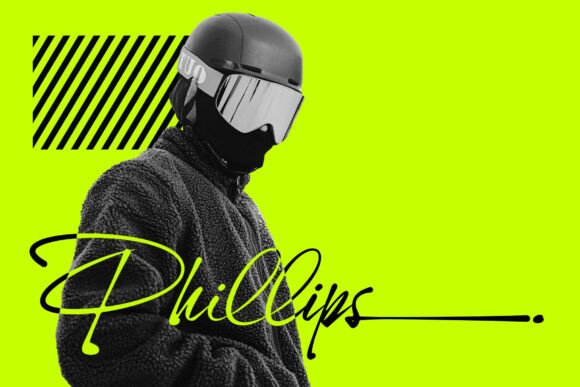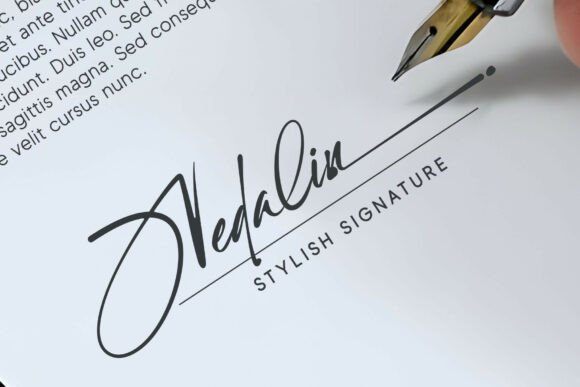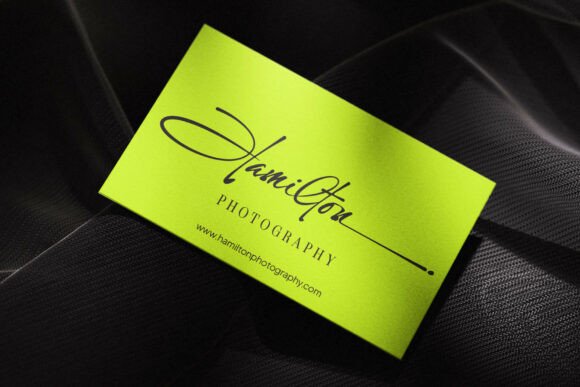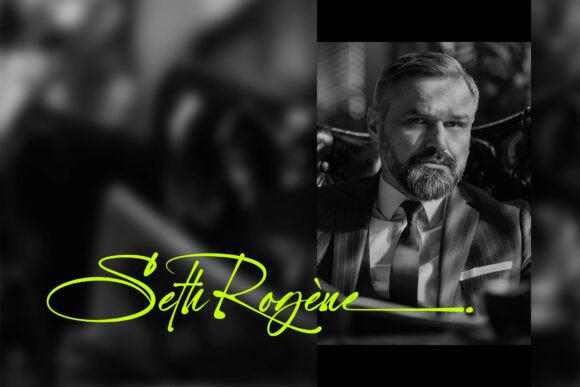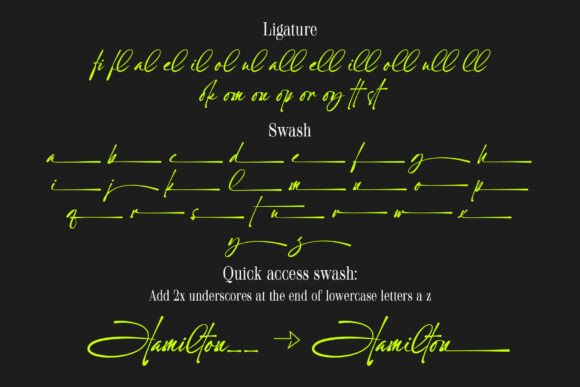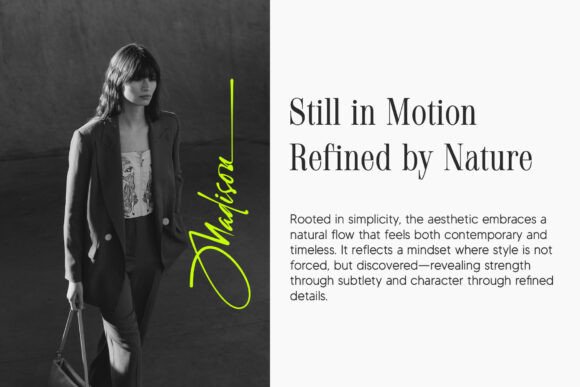
Introduction to Nedalin Font
Have you ever stared at a blank page, trying to conjure up the perfect font for your next creative project? The pressure to find the perfect design resource can be overwhelming, but what if I told you there’s a font that can take your designs to the next level? Say hello to the Nedalin Font, a game-changing signature-style font that’s about to become your new best friend.
As a designer, you’re constantly on the lookout for high-quality fonts that can elevate your work and make it stand out. The Nedalin Font is just that – a versatile and stylish font that features a bold, expressive, and natural character. With its smooth, flowing strokes and swash and ligature features, this font is perfect for creating unique and elegant visual identities.
Key Features of Nedalin Font
- The unique, elegant design of Nedalin Font makes it an excellent choice for creative projects, such as branding, typography, and graphic design.
Honest Review: Nedalin Font
I recently had the chance to work with the Nedalin Font, and I must say, it’s been a pleasant experience. As a designer, I’m always on the lookout for high-quality design resources that can elevate my creative projects.
The Nedalin Font is a beautifully crafted font that exudes elegance and sophistication. What works well is its versatility, making it suitable for a wide range of design applications, from branding to digital design.
However, I did encounter a few limitations. The font’s character set is somewhat limited, which can be a problem for designers working on projects that require a wide range of characters.
Nedalin Font
The Nedalin Font is a high-quality design resource ideal for creative projects. With its unique style and transparent background, it adds a touch of sophistication to any visual content.
The Nedalin Font is suitable for various design projects, including:
- Logos and branding materials.
- Marketing materials, such as brochures and flyers.
- Presentations and reports.